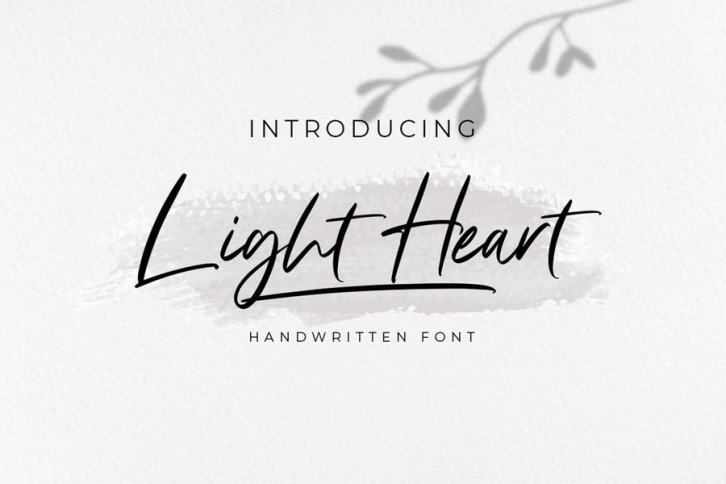
"Light Heart" is a handwritten brush typeface. Its classy energetic look makes it the perfect fit for logos, printed quotes, invitation cards, social media headers, product packaging and a lot more!